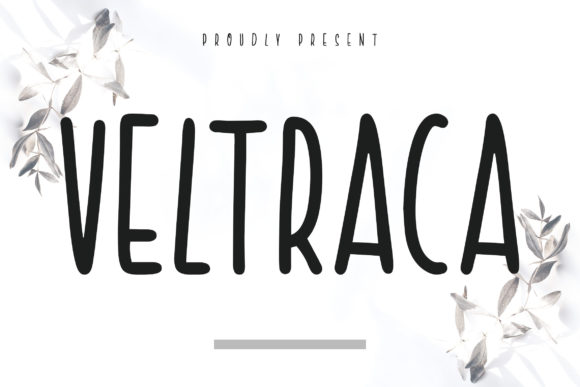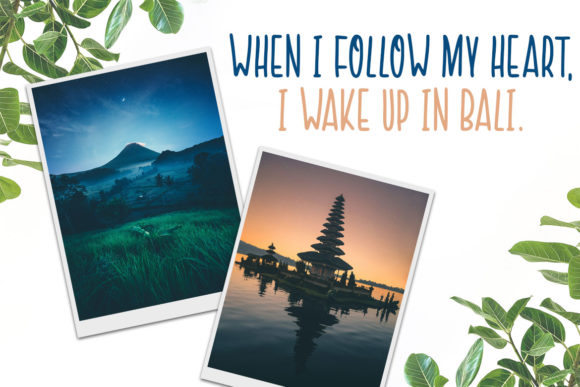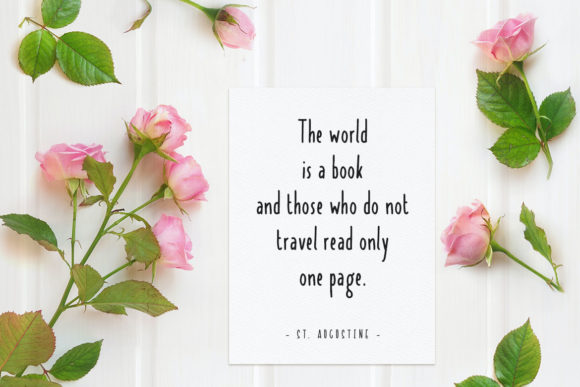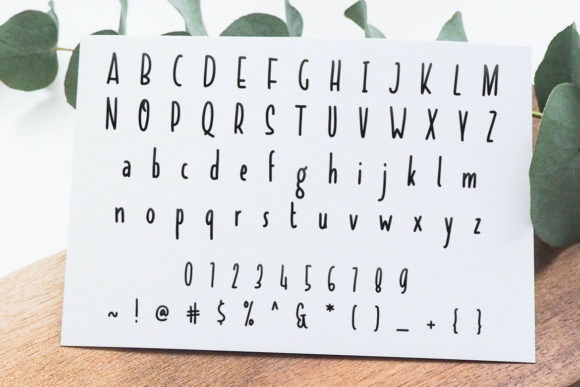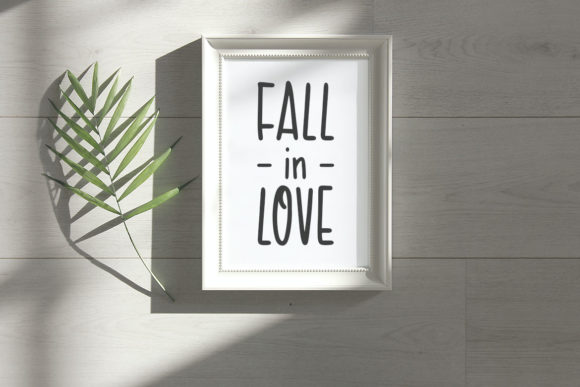
Veltraca Font
About Veltraca Font
Veltraca is a cute and casual display font with an incredibly friendly feel. This fun and dynamic display is a simply wonderful addition to any font library and will look great in a wide range of arts & crafts projects.